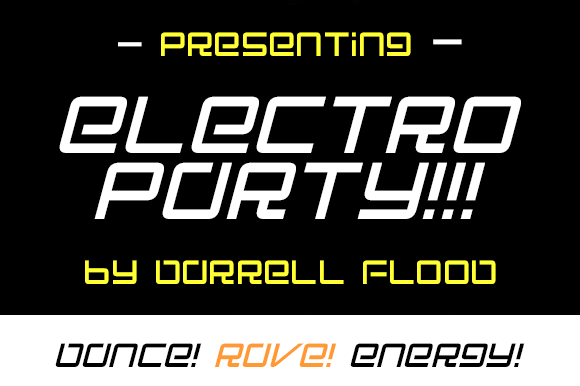
Introduction to Electro Party Font
Electro Pary is a slick, energetic font in an electric neon style.
Perfect for music events, science fiction works, and high-tech themes .
Key Features of Electro Party Font